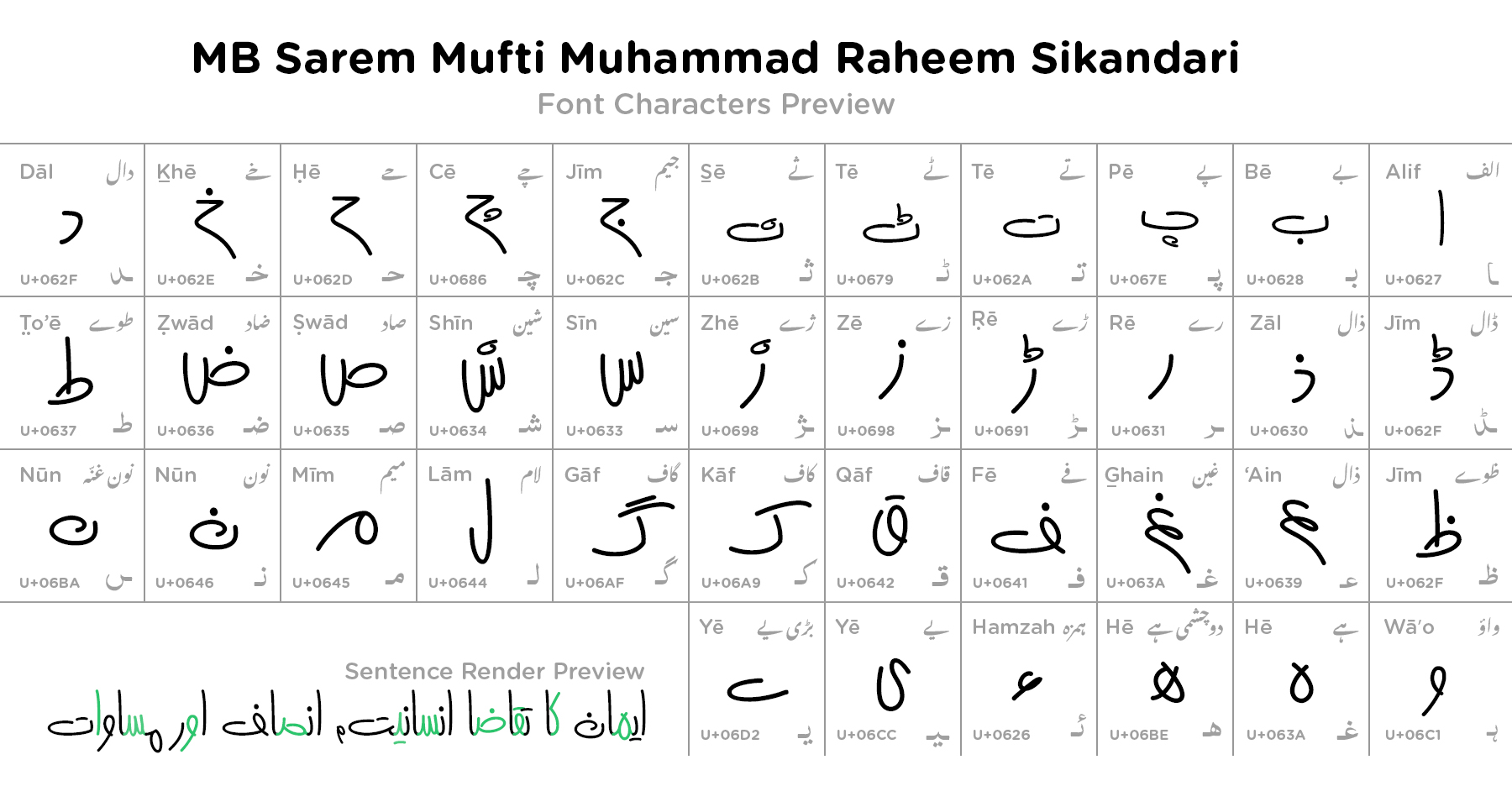
MB Sarem Mufti Muhammad Raheem Sikandari is a TrueType Sindhi Font crafted by a Sindhi font designer named Sanaullah Mangnejo Sarem. This font is the trademark of Ayesha Graphics. It is a regular free-hand decorative font with an extensive character set and a glyph count of 626. The font mimics the casual handwriting giving your text a natural feel. There is a delicacy in its irregularity and uneven appearance. This handwritten font adds warmth and personality to your designs, just like real handwriting! MB Sarem Mufti Muhammad Raheem Sikandari has uneven spacing between letters and different thicknesses, making them feel casual and unique. It is also a condensed font as the letters are closely spaced. It can be used in a variety of projects demanding a natural feel like writing poetry in Urdu, Sindhi, Persian, and different regional languages. It only comes in regular font weight and offers a high legibility. Moreover, it follows all the latest Unicode standards thus making it a versatile font.